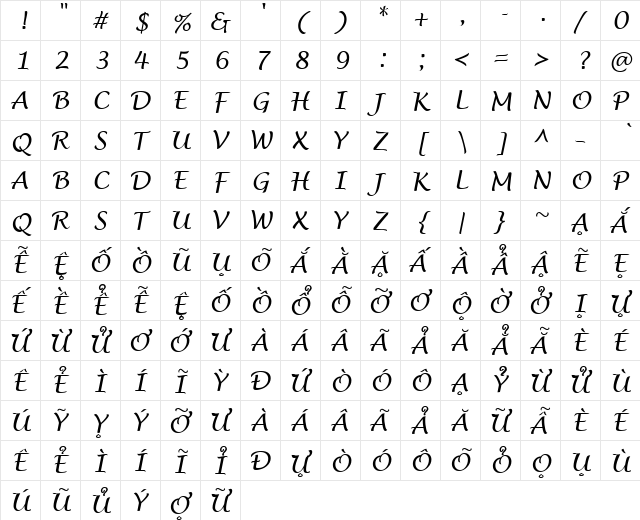
VI Phuong Thuy Hoa Normal
Design Context for VI Phuong Thuy Hoa Typeface
VI Phuong Thuy Hoa takes a measured approach to typography — its balanced proportions and neutral character make it a reliable workhorse for both digital and print work.